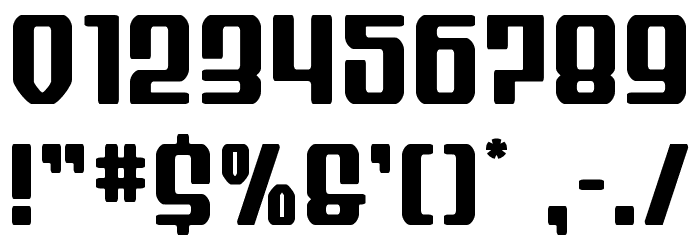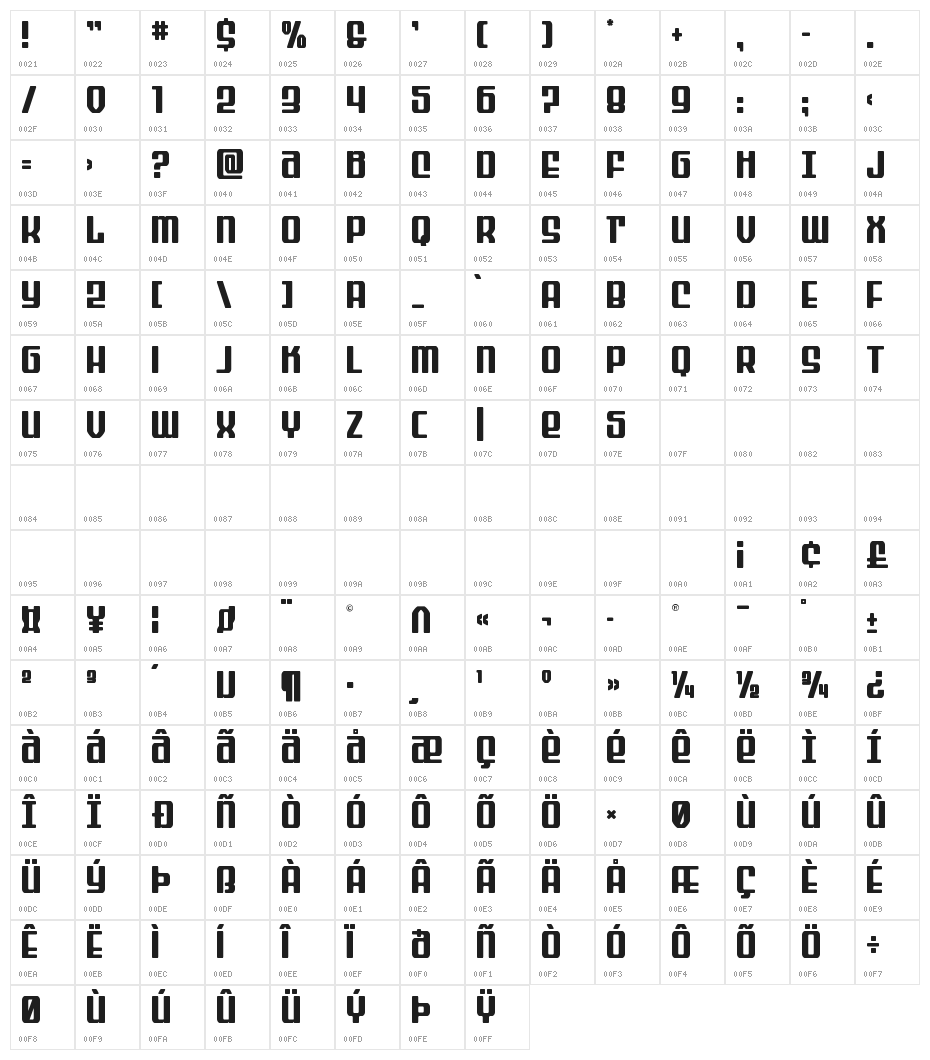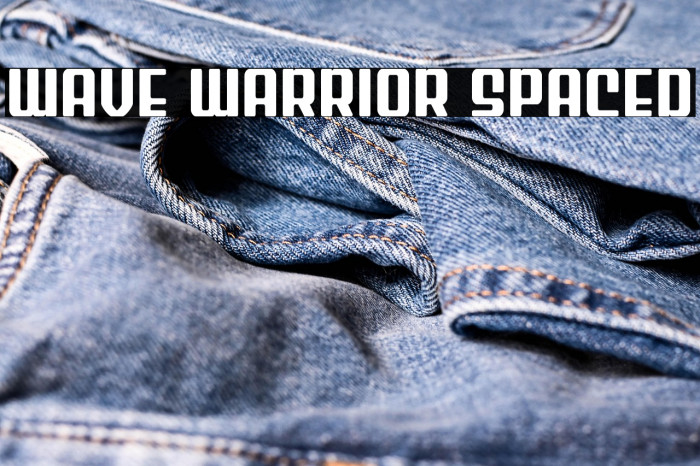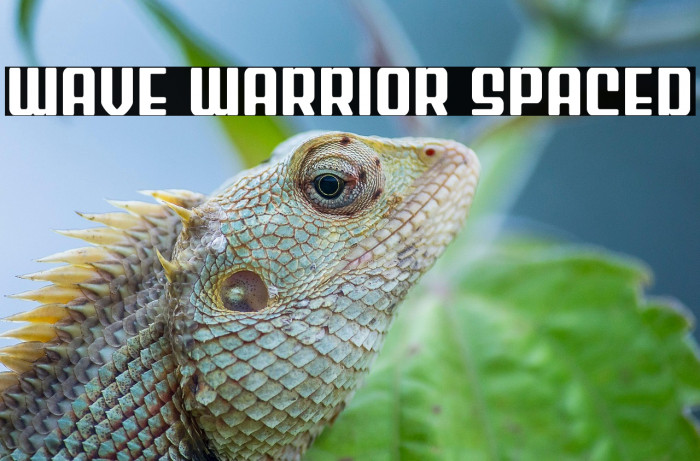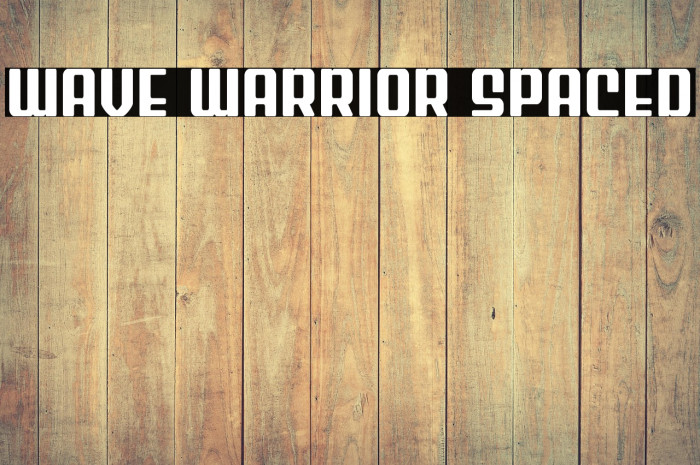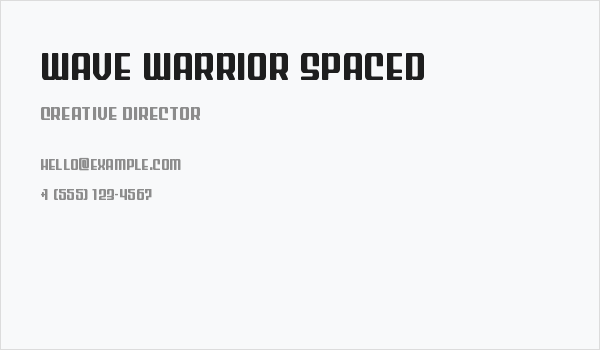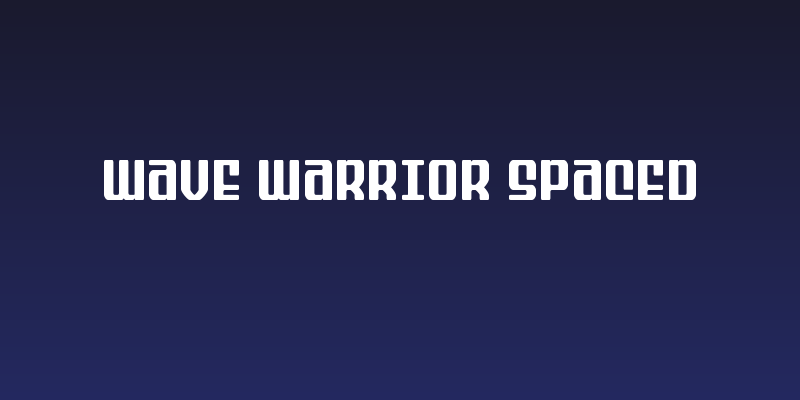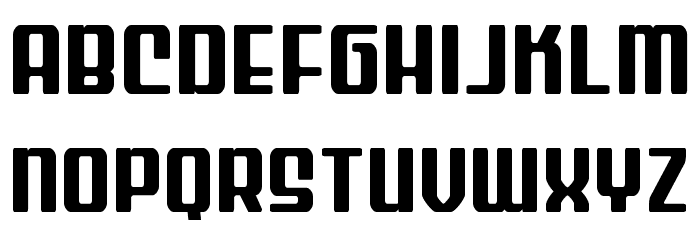
Wave Warrior Spaced Font
Wave Warrior Spaced Description
This font features a bold and robust design, characterized by its thick, blocky letters with rounded corners. The uppercase and lowercase letters maintain a consistent height, contributing to a uniform appearance. The numerals and special characters follow the same bold style, ensuring a cohesive look across all text elements. The font's strong geometric shapes and minimal contrast in stroke thickness give it a modern and industrial feel. Its design is both eye-catching and legible, making it suitable for various applications where a strong visual impact is desired.
| Proposed Projects | Ideal for branding, posters, headlines, and any design requiring a strong, impactful typeface. |